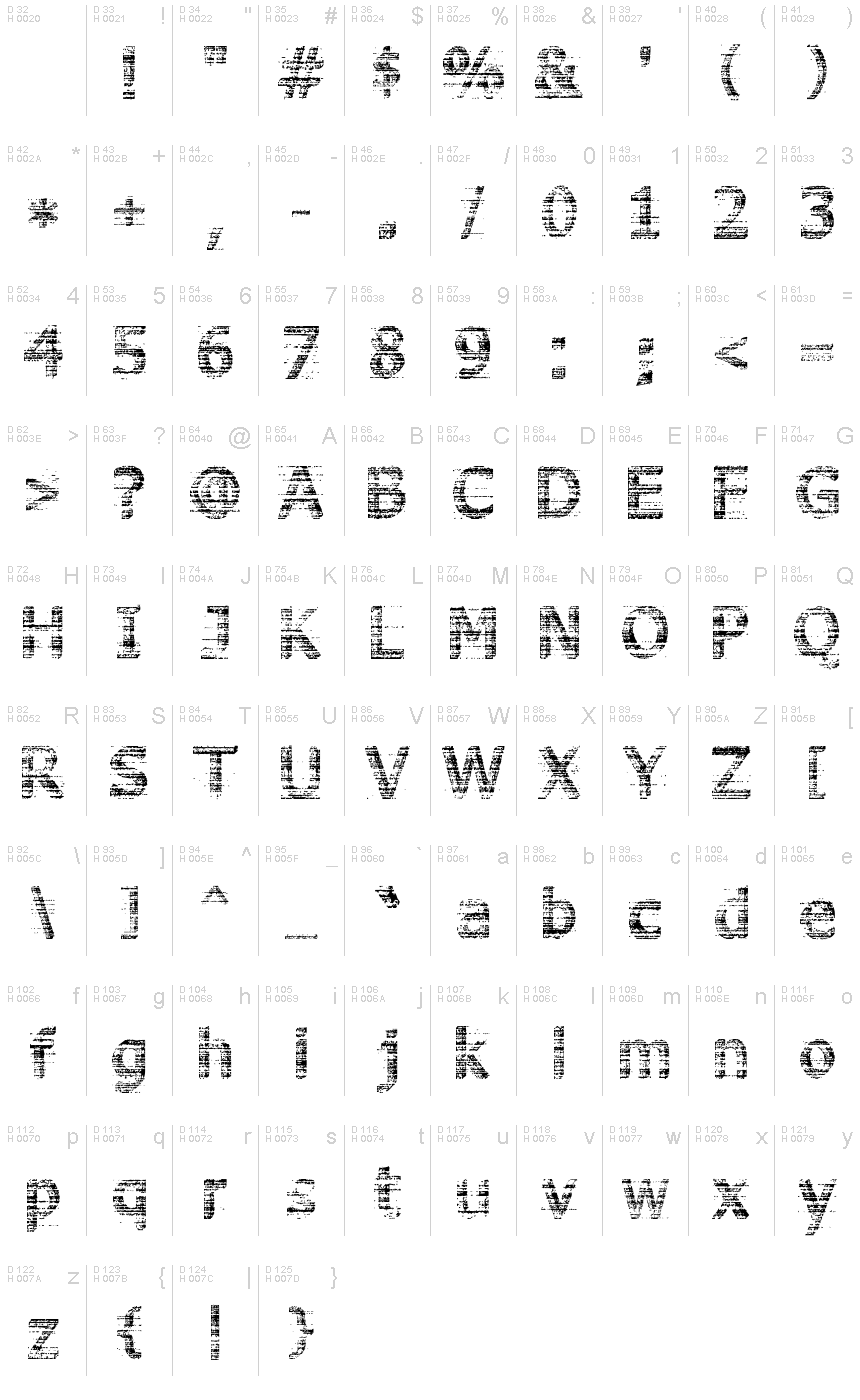
3D Noise
3D Noise is a captivating font that exudes a raw, distressed aesthetic. Its eroded, gritty appearance evokes a sense of grit and industrial charm. The irregular, textured letterforms create a visually striking and impactful visual statement, making it ideal for use in bold headlines, posters, and branding applications that demand attention.
The font's distinctive character lends itself well to conveying a sense of ruggedness, nostalgia, or a rebellious spirit, making it a versatile choice for designers seeking to craft memorable, attention-grabbing designs.